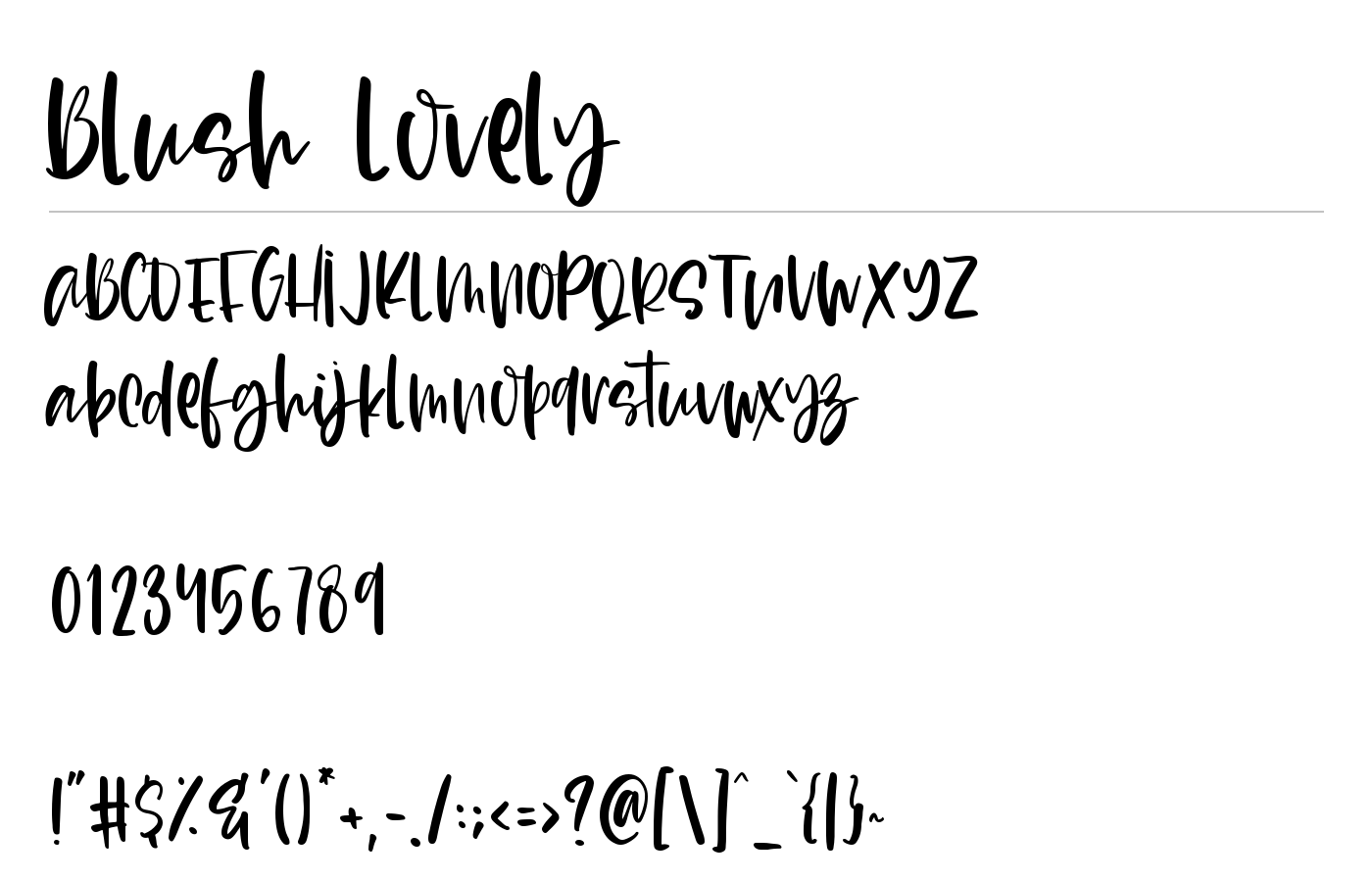
Blush Lovely Font is a lively and charming handwritten script featuring tall, slender letterforms with playful curves and varied stroke weights that create a warm, personal feel. Its casual yet elegant style makes it ideal for creative branding, invitations, and lifestyle designs where a friendly and approachable tone is desired. This font works beautifully in both display and short text settings, adding a touch of whimsy and individuality without sacrificing readability.
Blush Lovely Font
About Blush Lovely Font
| Font family | Blush Lovely Font |
| Designer | Dimas Prasetyo |
| Trademark | Dm Letter Studio Bandung - Indonesia |